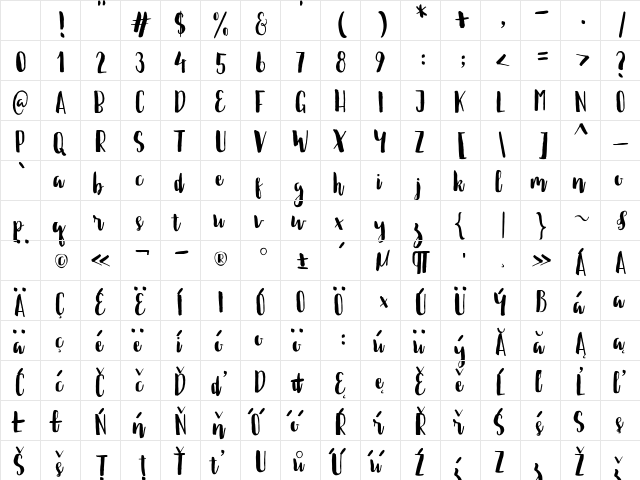
Complete Ellise Naomy Demo Regular glyph index. Displaying only characters natively supported by Ellise Naomy Demo Regular font.
Ellise Naomy Demo is a composed and adaptable typeface that performs quietly and consistently across a wide range of design contexts.